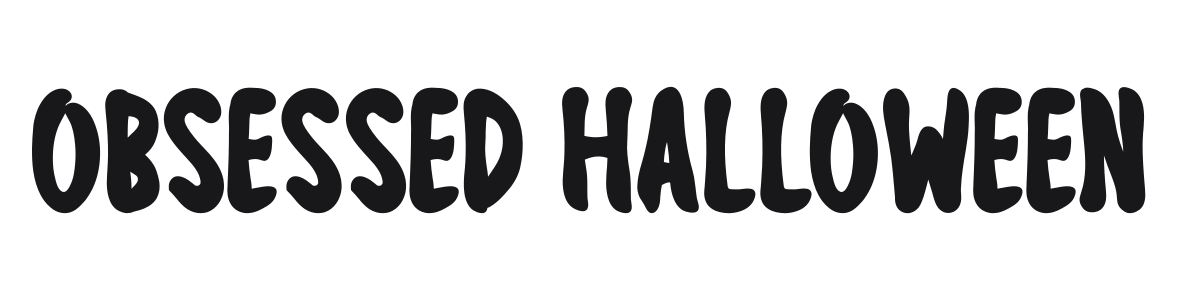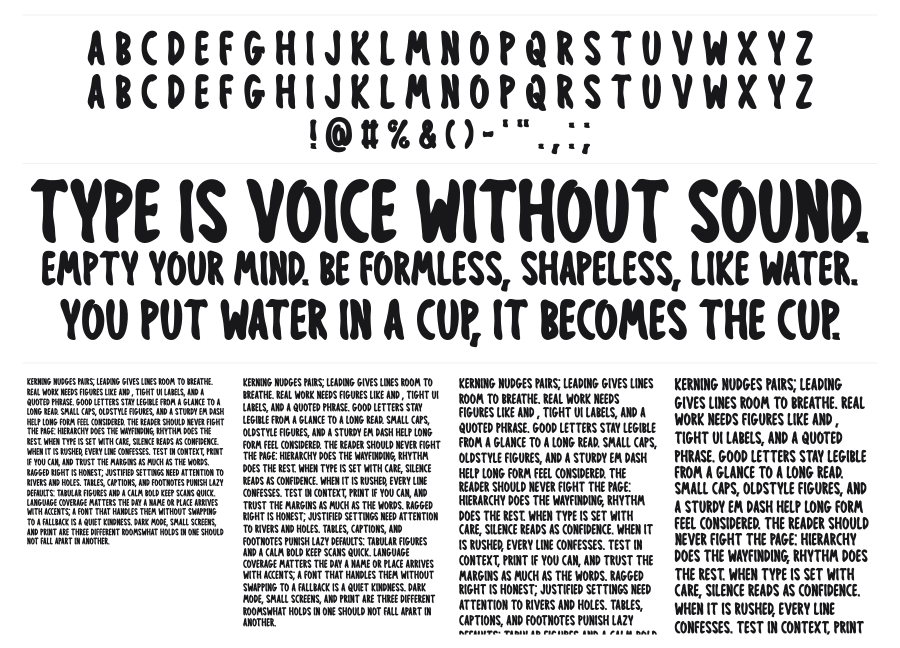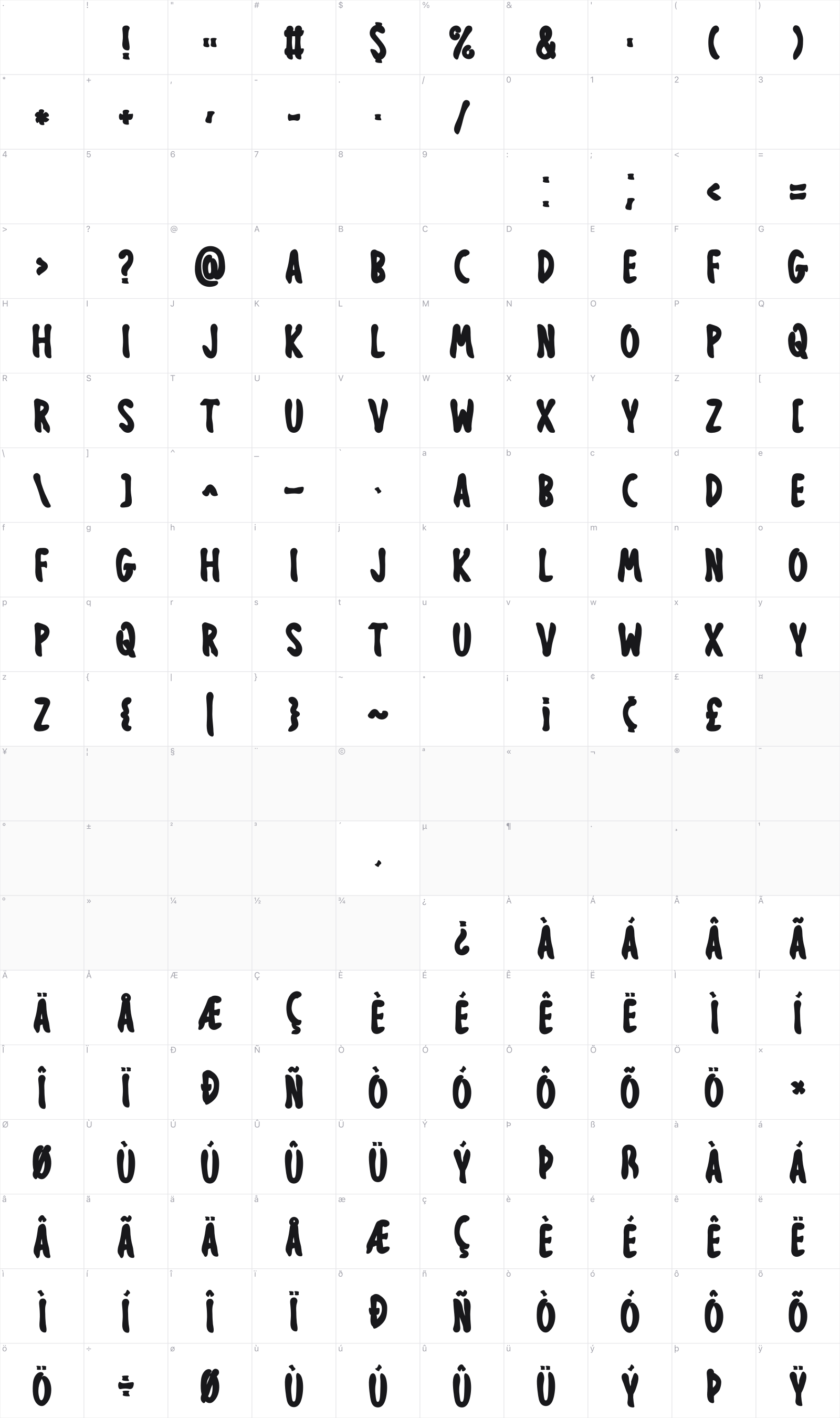
Obsessed Halloween
Obsessed Halloween is a chunky, hand-drawn display face built around thick rounded strokes with a deliberately wobbly, irregular silhouette. The heavy weight and soft terminals give it a cartoon-spooky energy that lands somewhere between friendly and creepy. Strong for seasonal posters, party invites, and Halloween branding.